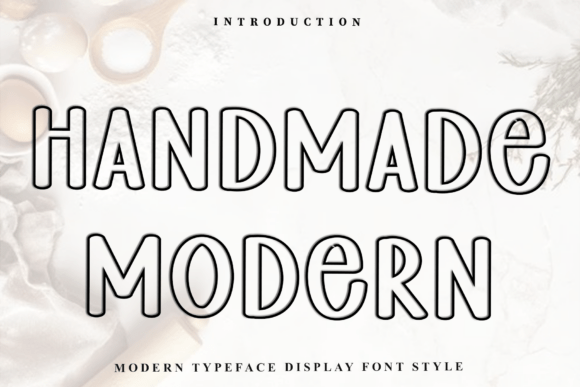
The Birth of a Unique Design
Remember that moment when you stumbled upon the perfect font, and everything just clicked? The letters danced on the page, and you knew you had found your perfect match. That’s exactly what we’re about to share with you – a font that will take your designs to the next level: the Homemade Modern Font.
This beautiful and eye-catching font is designed with a soft, unique touch that gives it a special character. Its versatility makes it perfect for design projects, crafts, and other creative works. Whether you’re a professional designer or a crafty enthusiast, the Homemade Modern Font is a valuable addition to your toolkit. Its compatibility with various applications, including Windows and open-source platforms, makes it an ideal choice for a wide range of products.
Key Features of Homemade Modern Font
- Unique Characteristics: Homemade Modern Font features a distinctive, hand-drawn aesthetic with subtle imperfections, giving it a unique and organic feel.
Designer Review: Homemade Modern Font
Overall, I think the Homemade Modern font has some great qualities that make it a solid addition to any design project. ✨ One of the things that stands out to me is the friendly, approachable feel that the font embodies. It’s perfect for projects that need a warm, inviting tone.
The font’s versatility is another major plus. ✨ It works well in both print and digital applications, and it’s a great choice for body text or display headings. I also appreciate the variety of weights and styles that are available, which makes it easy to customize the font to fit your design needs.
However, there are a few limitations to keep in mind. ⚠️ The font may not be the best choice for projects that require a more formal or professional tone. Additionally, the font’s simplicity can sometimes make it feel a bit generic or overused.
- Friendly, approachable feel
- Works well in both print and digital applications
- Available in a variety of weights and styles
- Perfect for body text or display headings
Practical Application Guide for Homemade Modern Font
The Homemade Modern Font is ideal for:
- Editorial and publishing content
- Distressed textures or patterns for a worn, vintage look
- Warm, muted colors such as beige or brown for a cozy atmosphere
- Hand-drawn illustrations or graphics to add visual interest
- Watercolor or hand-painted designs for a whimsical touch
- Luxurious paper or cardstock for a high-end feel
- Personalized photos or illustrations to add a special touch
- Chalk
Frequently Asked Questions: Homemade Modern Font
Q: What is the optimal font size for the Homemade Modern Font?
Combine the font with:
Project 3: Modern Chalkboard Sign
Create a modern and trendy chalkboard sign using the Homemade Modern Font.
To use Homemade Modern Font in this project, apply a subtle shadow or gradient to the font to give it a sense of depth. You can also experiment with different font sizes and styles to create a visually appealing design.
Combine the font with: